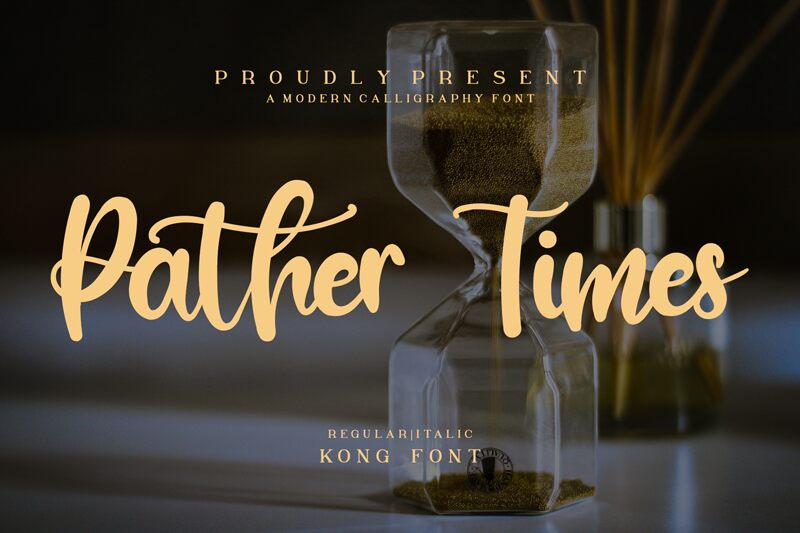
Pather Times font family by Kong Font is an artistic and modern free script font. This flowing typeface has all the characteristics to suit personal projects both on-screen and in print. It has a stylish organic look which communicates a personal feel that grabs the attention of the reader. Script fonts are nice to have in your design arsenal, and this one with its elegance is definitely a keeper.
The expressive font is mostly fitting in digital use cases such as web and social media, but it can also occasionally have its moments in print. Use in headings, greeting cards, titles, posters, book covers, banners, packaging, clothing, labels, editorial designs, invitations, slogans, and advertisements.